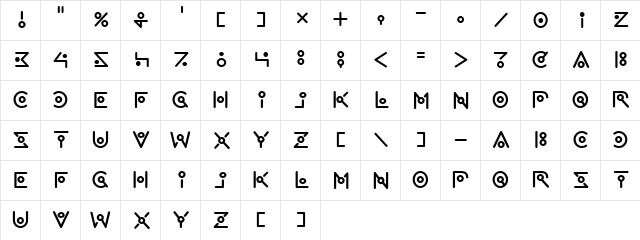
we are alien!! Regular
| Foundry | Kittiphat Suakmolson |
| Designer | Kittiphat Sukamolson |
Design Context for we are alien!! Typeface
we are alien!! is a composed and adaptable typeface that performs quietly and consistently across a wide range of design contexts.